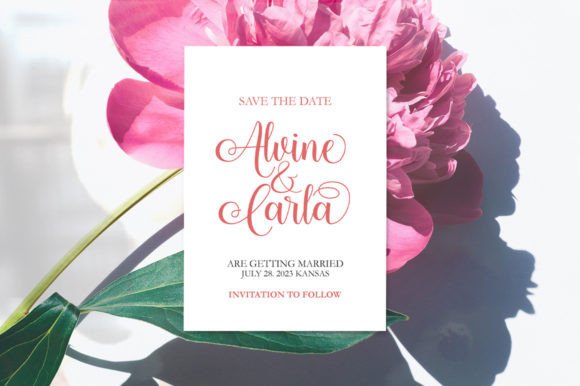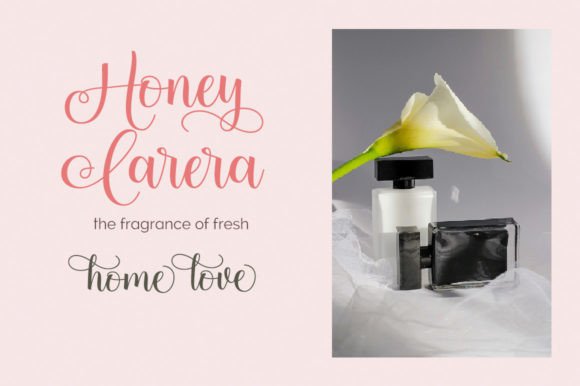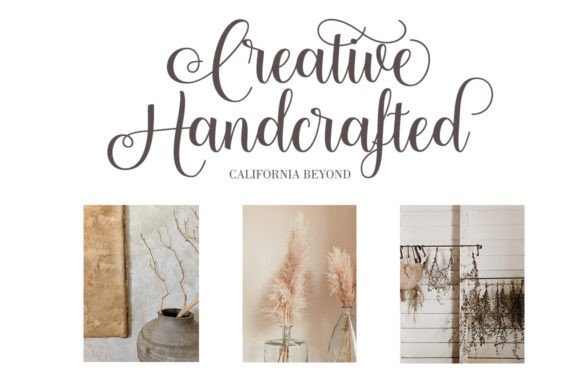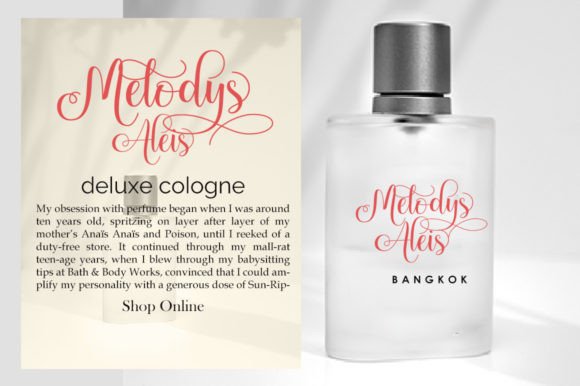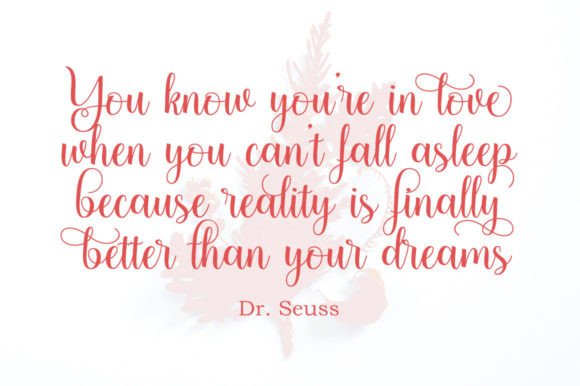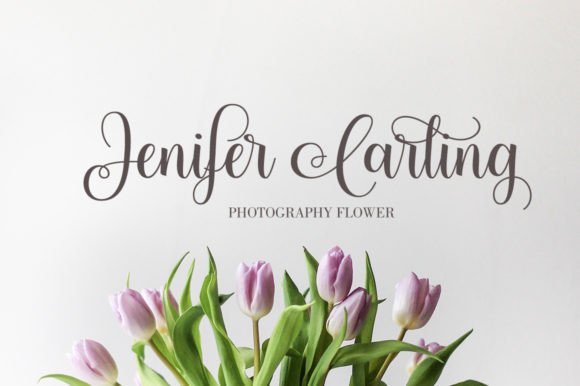
Introducing Amerthin Font: Elevate Your Designs with Elegance and Sophistication
Are you on the hunt for a font that exudes class, sophistication, and a touch of femininity? Look no further than Amerthin Font, a beautiful, handwritten typeface that is sure to elevate your designs to the next level. With its distinctive curve and interesting features, Amerthin is perfect for stylish, feminine projects that require a dash of elegance.
What Makes Amerthin Font So Special?
Amerthin Font boasts a range of features that make it an ideal choice for designers and crafters. Some of its standout features include:
- Initial and Ending Engraved Letters: Both upper and lower case letters feature beautiful engraved initials and endings, adding a touch of sophistication to any design.
- Exquisite Ligatures: Amerthin Font includes stunning ligatures that will take your designs to the next level. Ligatures are special characters that combine two or more letters in a single glyph, creating a beautiful, flowing effect.
Perfect for a Range of Design Projects
Amerthin Font is highly versatile and can be used for a wide range of design projects, including:
- Wedding Design Projects: Create beautiful wedding invitations, stationery, and signage with Amerthin Font.
- Fashion Designs: Use Amerthin Font to add a touch of elegance to your fashion designs, including branding, packaging, and advertising materials.
- Greetings and Invitations: Create stunning greeting cards, invitations, and thank-you cards with Amerthin Font.
- Social Media Graphics: Use Amerthin Font to create eye-catching social media graphics, including Facebook and Instagram posts.
- Basic Character Binding: This includes capital and lowercase letters, numbers, symbols, and punctuation.
Tips for Using Amerthin Font
To get the most out of Amerthin Font, here are a few tips:
- Experiment with Ligatures: Try out different ligatures to add visual interest to your designs.
- Mix and Match: Combine Amerthin Font with other fonts to create a unique and eye-catching design.
- Pay Attention to Spacing: Make sure to adjust the spacing between letters and words to ensure your design looks elegant and sophisticated.
Amerthin Font is a stunning, handwritten typeface that is perfect for designers and crafters who want to add a touch of elegance and sophistication to their designs. With its distinctive curve, exquisite ligatures, and alternative glyphs, Amerthin Font is sure to become a favorite in your design arsenal. Whether you’re working on wedding design projects, fashion designs, or social media graphics, Amerthin Font is the perfect choice.